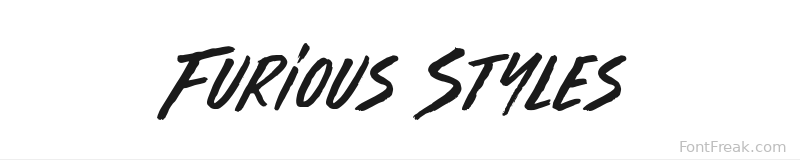
Furious Styles
Furious Styles by BLKBK Fonts is a striking display font that embodies an energetic and dynamic aesthetic, perfect for making a bold statement in any design project. This handwritten style features a distinct brush script that exudes personality and flair, characterized by its strong, fluid strokes and varied weight. The contrast between thick and thin lines adds visual interest, while the slightly slanted letters contribute to a sense of movement and urgency. The spacing is carefully crafted, ensuring that each character flows seamlessly into the next, creating an engaging rhythm that captures attention.
The Furious Styles font is an excellent choice for a variety of creative applications. It is particularly well-suited for crafting eye-catching movie posters that demand attention, as well as vibrant branding for cafes or restaurants that want to convey a relaxed yet energetic vibe. Additionally, this font shines in promotional materials for events, such as music festivals or art shows, where a contemporary and artistic touch is essential. It can also enhance digital content, like social media graphics and blog headers, making it ideal for content creators looking to stand out.
Targeting graphic designers, small business owners, and anyone in need of an expressive typographic solution, Furious Styles is versatile and approachable. The font's unique character and stylish form make it a perfect fit for projects that aim to evoke emotion and connection. The Furious Styles font free download allows users to experiment with its vibrant personality without any financial commitment. This font stands out due to its distinctive blend of artistry and legibility, making it a valuable addition to any designer's toolkit. Its ability to infuse creativity into various contexts ensures that it remains a favorite among those seeking to make a memorable visual impact.